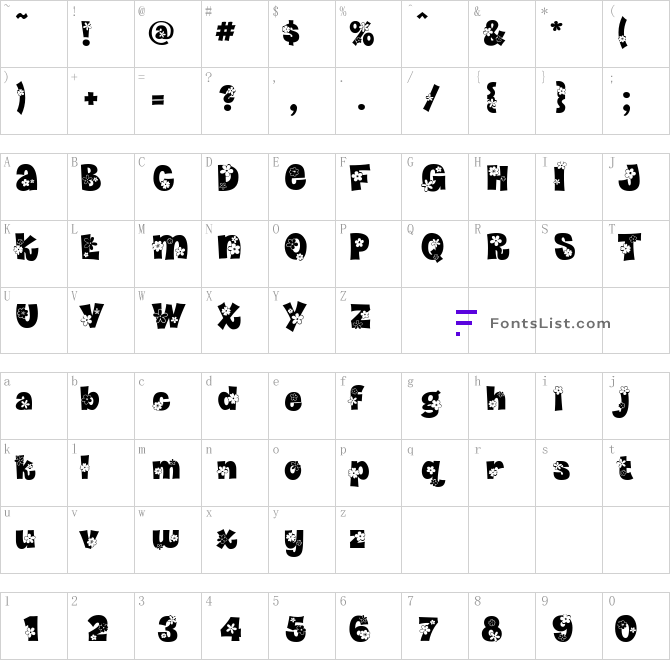
- Font Name:Daffodil
Daffodil.ttf is a very beautiful artistic font, Daffodil.ttf is widely used in the design and printing of various books and pictures,Daffodil.ttf has a strong visual impact,Daffodil.ttf is a commonly used font in newspapers, magazines and books, and is used in posters, e-commerce Poster design, store design, logo design, font design and other fields.Daffodil.